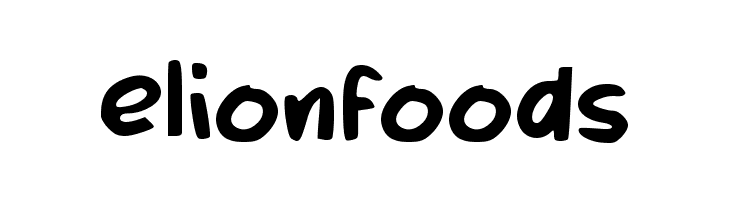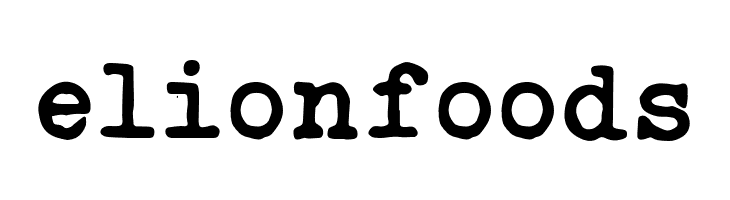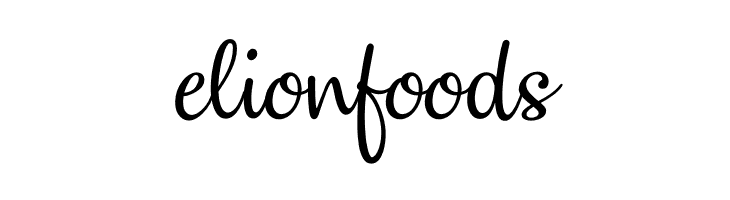
An ornate, calligraphic font with intricate flourishes and a classic appeal.
A bold, geometric font with a modern and industrial style.
A playful, bold font with rounded, bubbly characters and unique cut-out details.
A playful and elegant script font with smooth, flowing lines and connected letters.
Decorative font featuring stylized female faces in geometric frames.
A geometric, angular font with a futuristic and digital aesthetic.
A bold, brush-style font with dynamic and expressive characters.
A playful, bold handwritten font with rounded strokes and a friendly appearance.
A bold, vintage typewriter-style font with a distressed, handcrafted look.
A bold, textured, three-dimensional font with a playful, hand-drawn style.